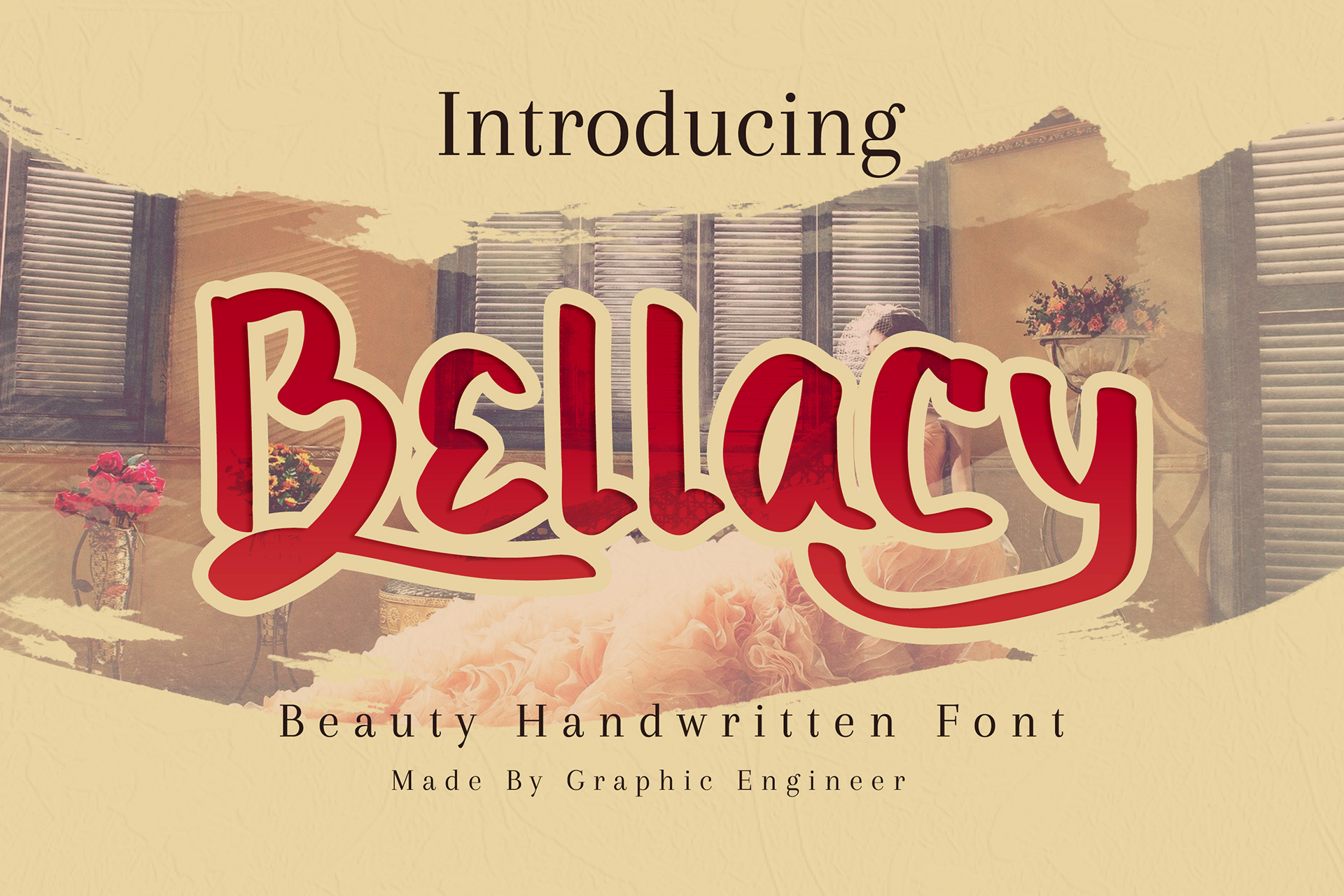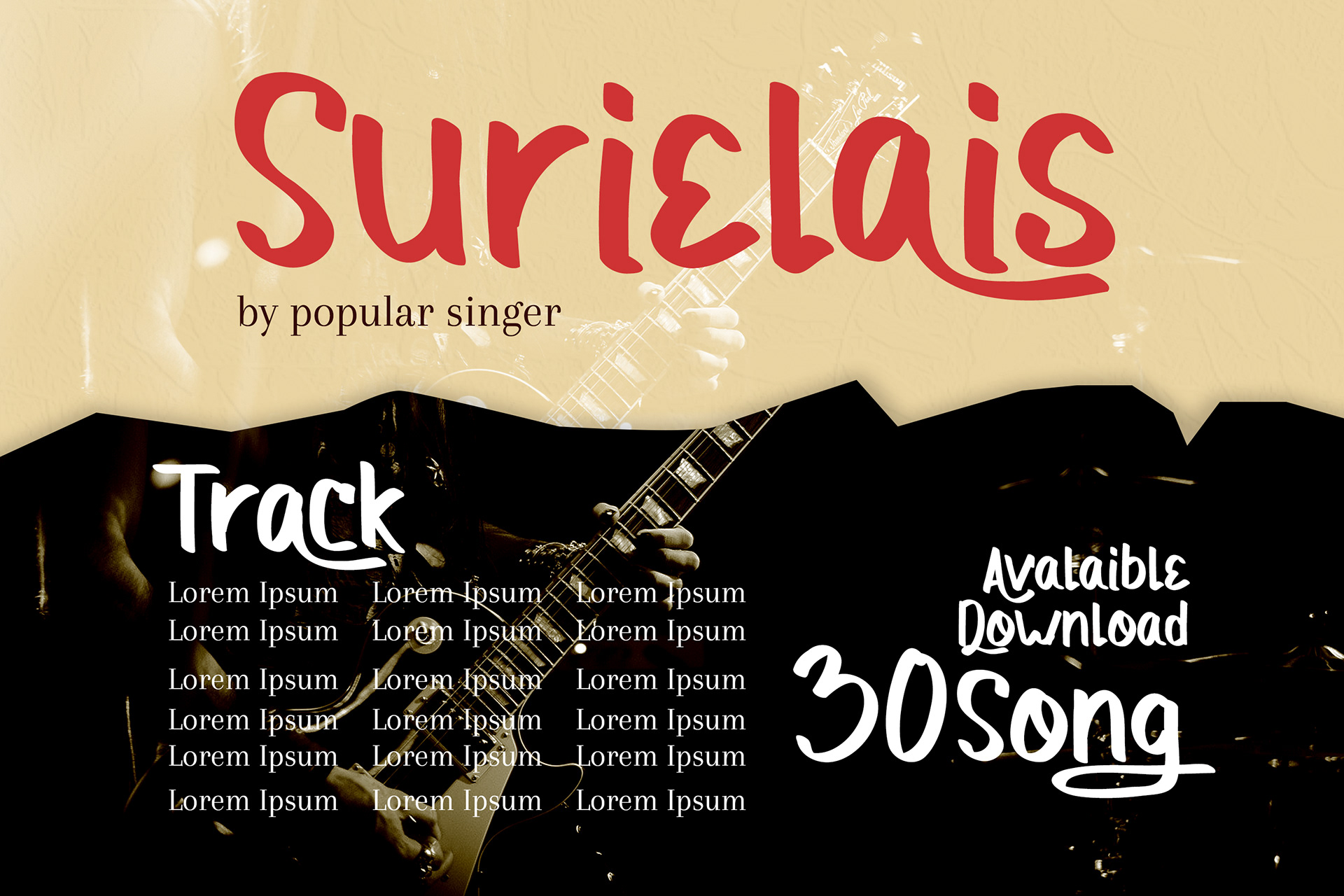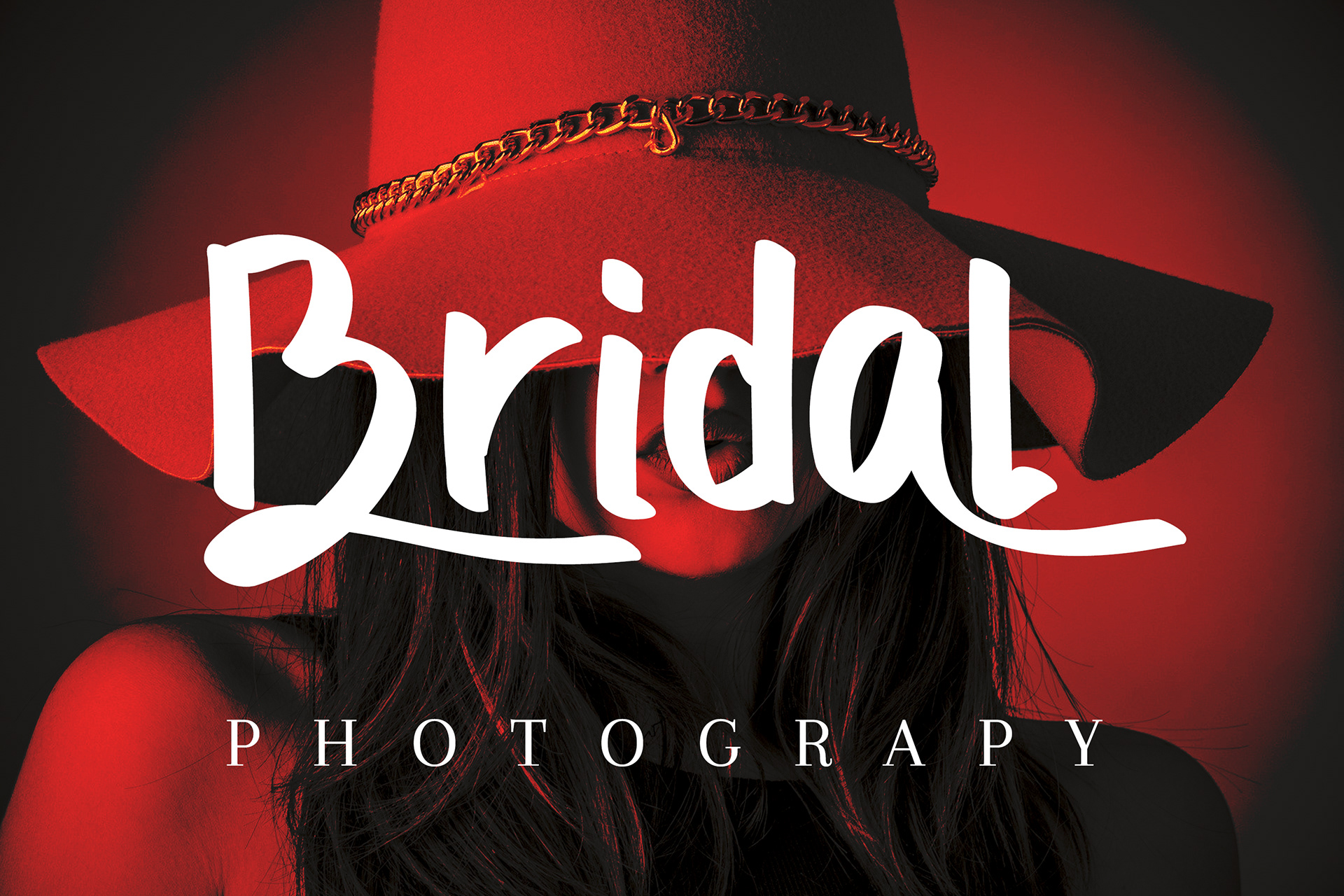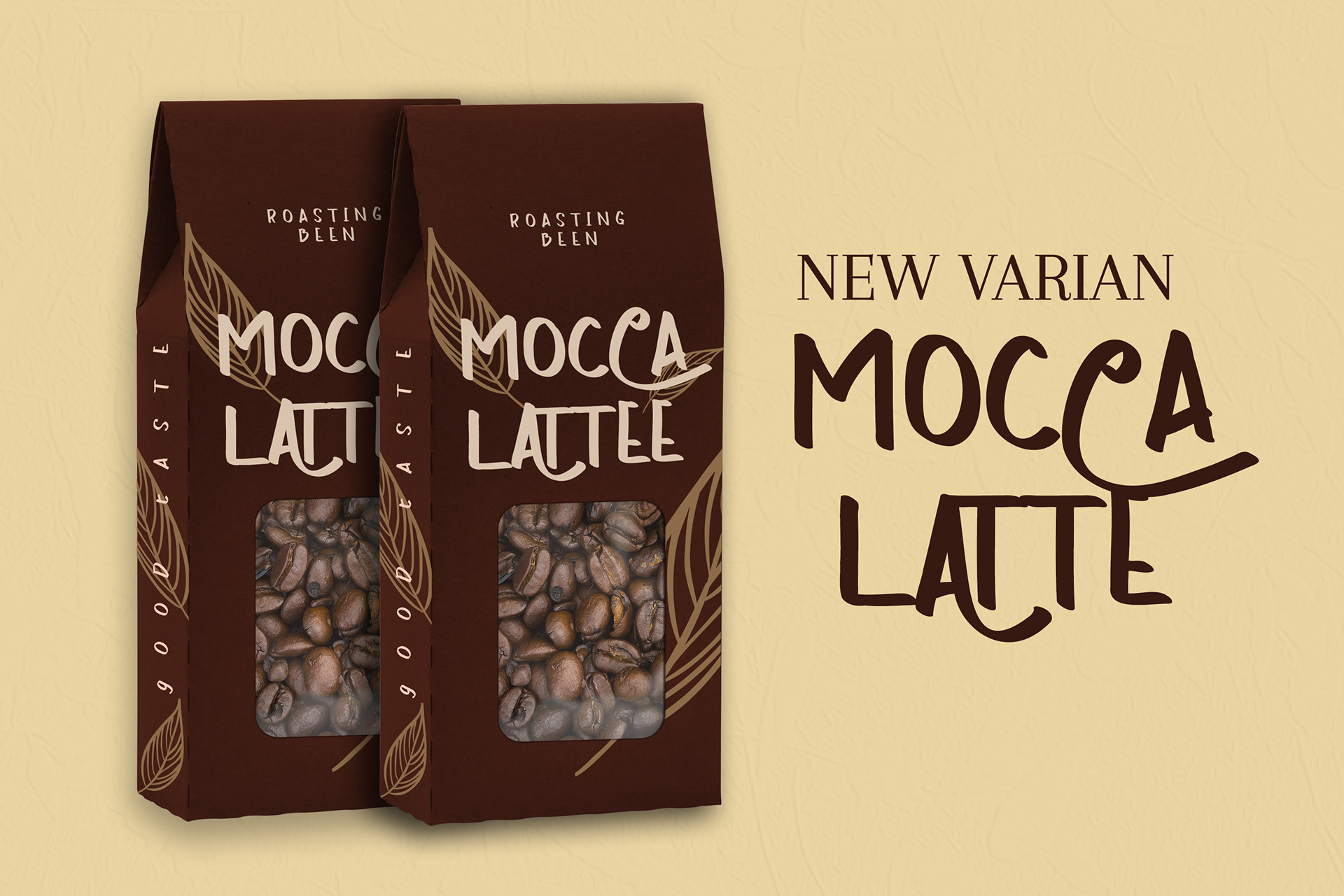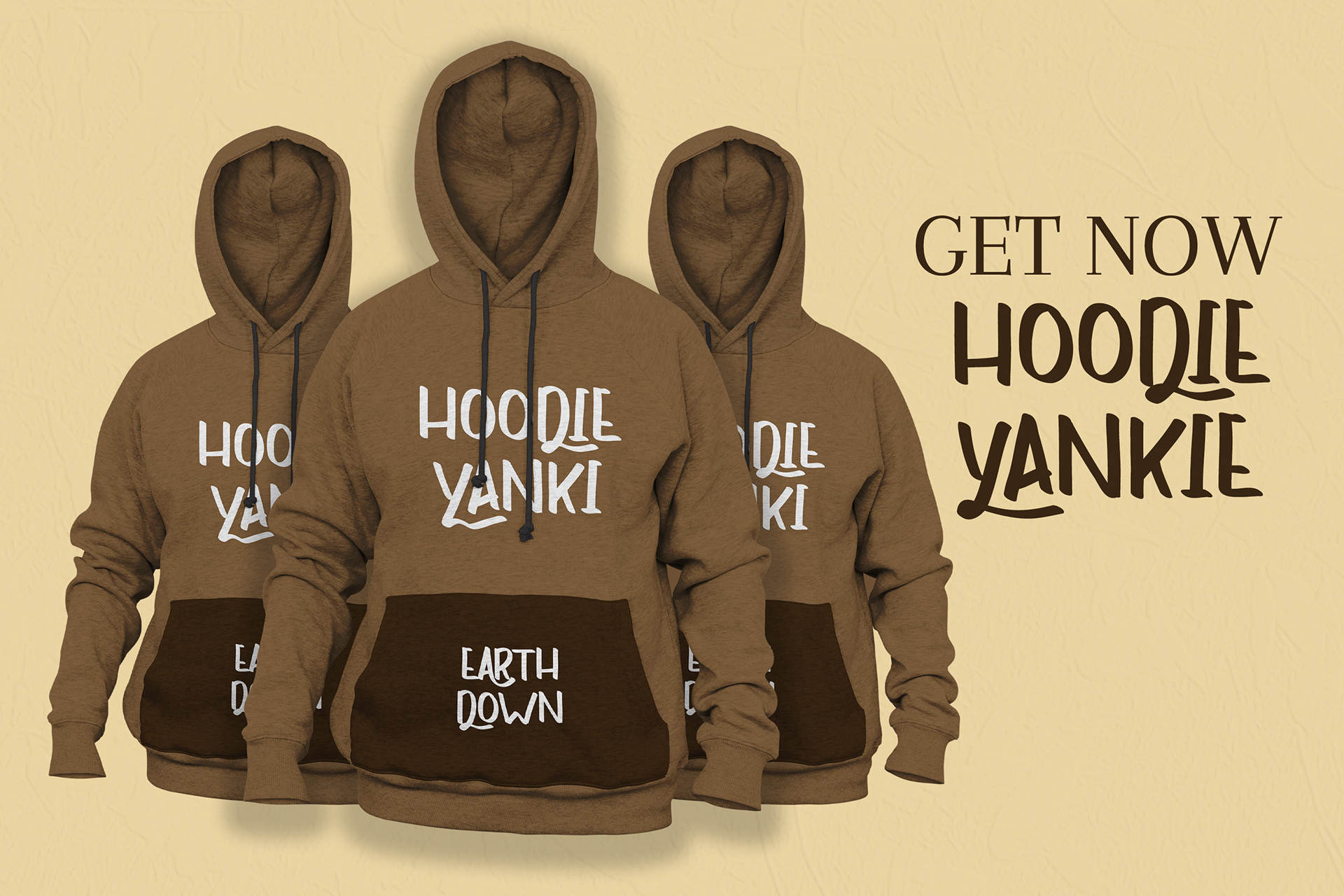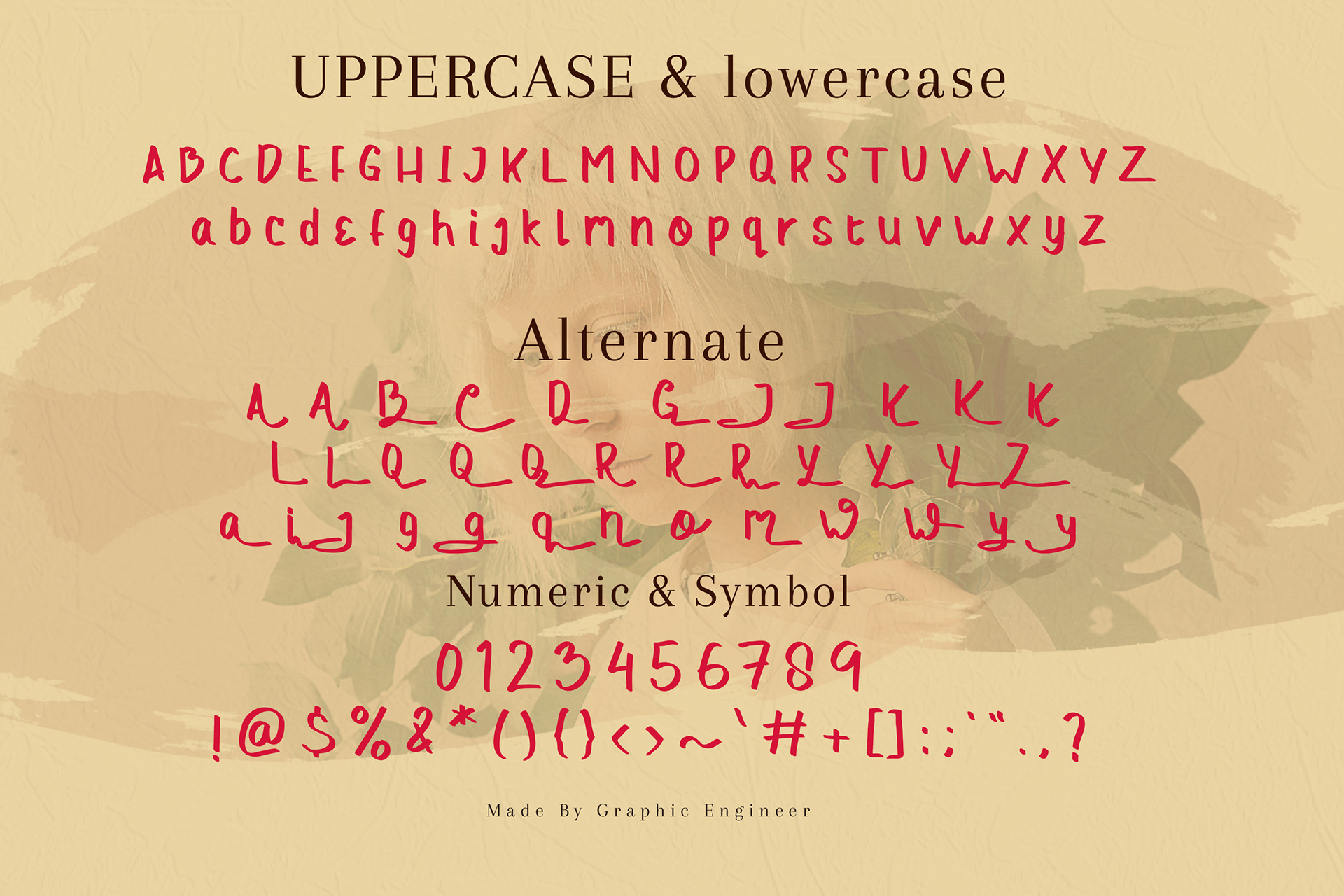
Bellacy - Handwritten Font
Introducing a beautiful handwritten font "Bellacy".
is a handmade handlettering, which is combining Girly, Elegant and classic typography.
Give your designs an authentic handcrafted. “Bellacy” is perfectly suited to Prited merchandise,wedding, invitation, heading, cover, poster, logos, quotes, product packaging, header, Instagram Post, Billboard, event, social media & greeting cards and many more.
is a handmade handlettering, which is combining Girly, Elegant and classic typography.
Give your designs an authentic handcrafted. “Bellacy” is perfectly suited to Prited merchandise,wedding, invitation, heading, cover, poster, logos, quotes, product packaging, header, Instagram Post, Billboard, event, social media & greeting cards and many more.
its help you to make great lettering Message.
Comes with feature :
- Uppercase
- Lowercase
- Alternate
- Number, Punctuation And Symbols
- Uppercase
- Lowercase
- Alternate
- Number, Punctuation And Symbols